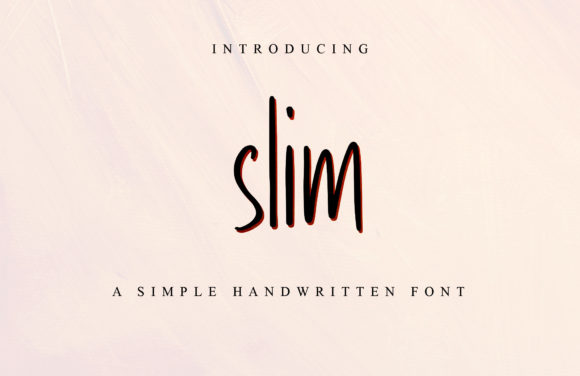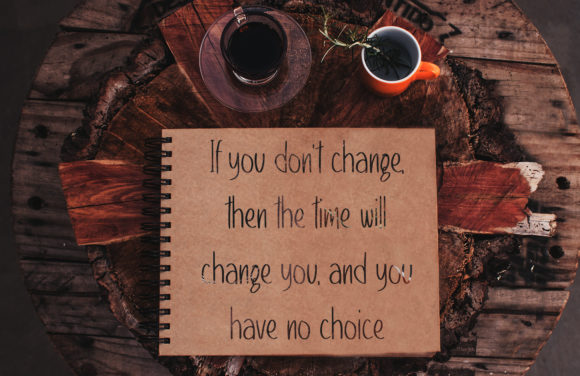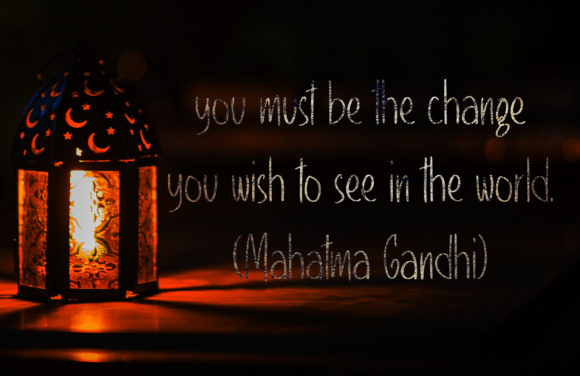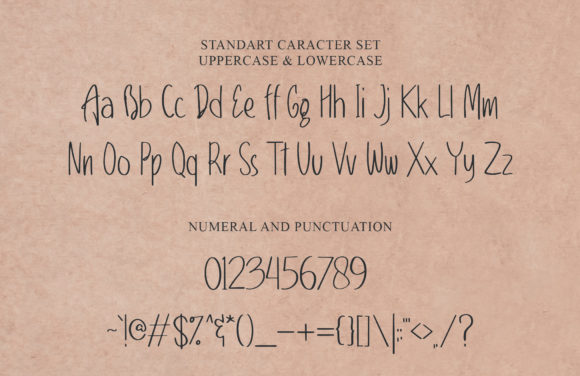
Slim Font
About Slim Font
Slim is a cute, informal and adaptable handwritten font. No matter the topic, this font will be an incredibly asset to your fonts’ library, as it has the potential to elevate any creation.